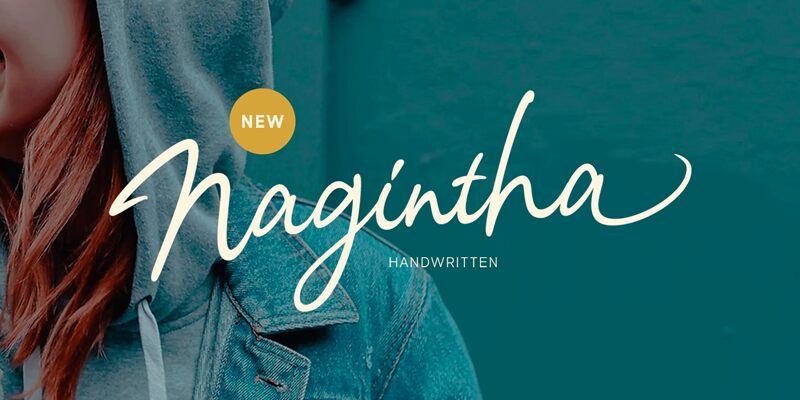
NaginthaDemo
Nagintha is a semi-light handwritten font by Letterhend Studio. With its elegant curves and smooth strokes, the font is perfect for a range of creative projects such as wedding invitations, branding, logos, and packaging designs. This versatile typeface exudes a personal touch and adds a hint of warmth to any design. Nagintha's semi-light weight makes it ideal for creating subtle emphasis without overpowering the overall look. Whether you're looking to create something romantic or modern, Nagintha is the go-to choice for anyone seeking to add an authentic handwritten feel to their project.